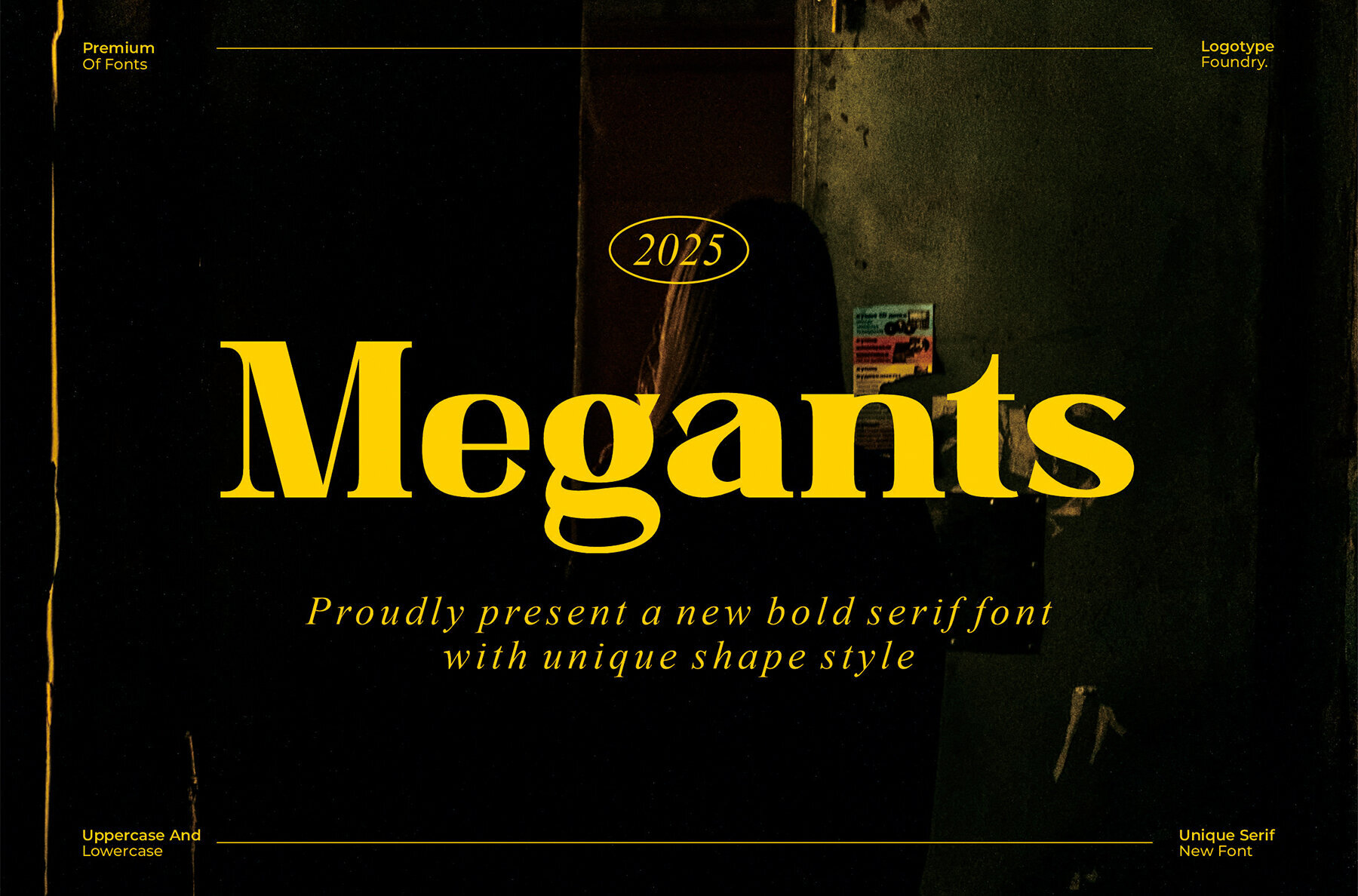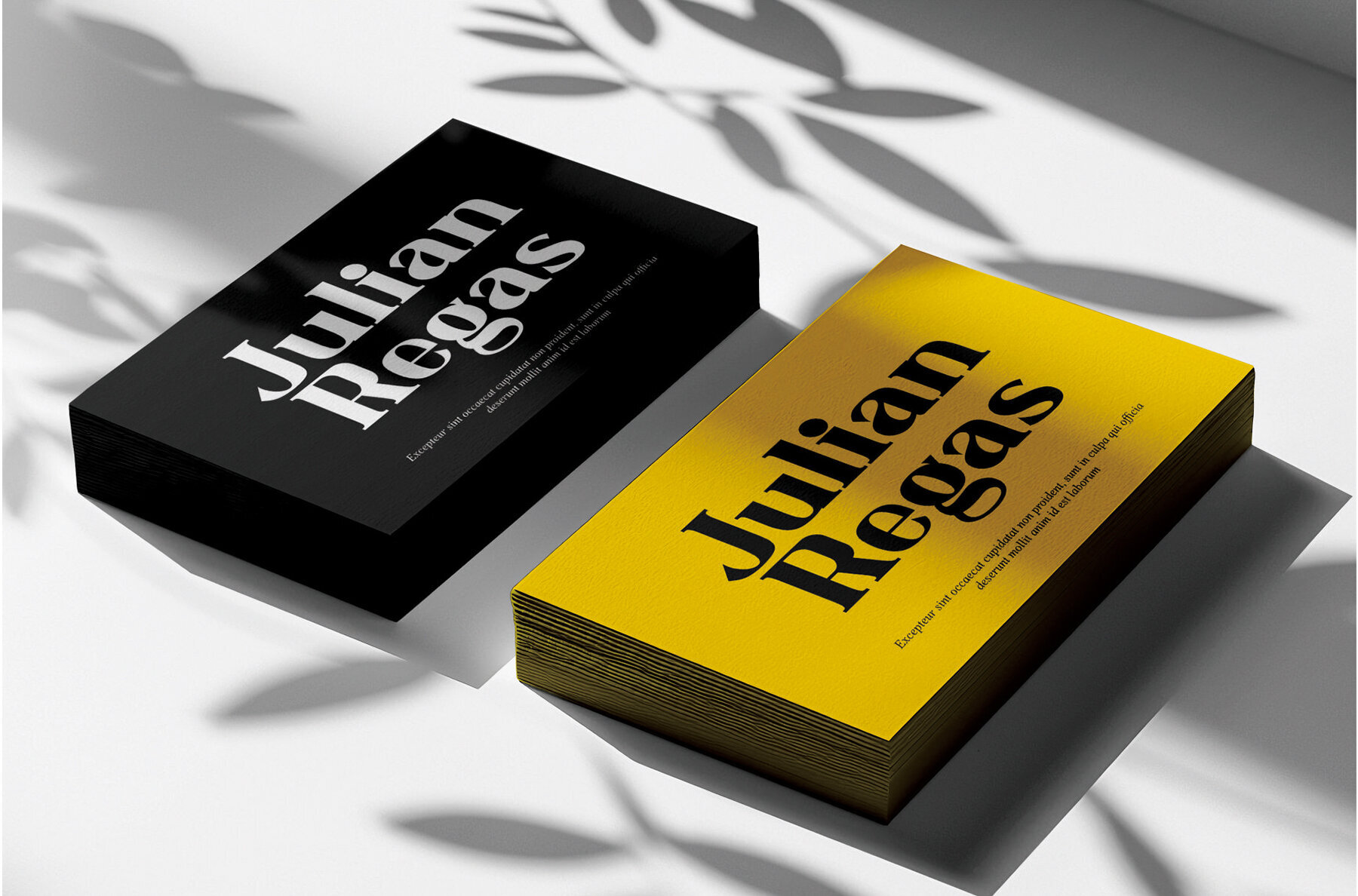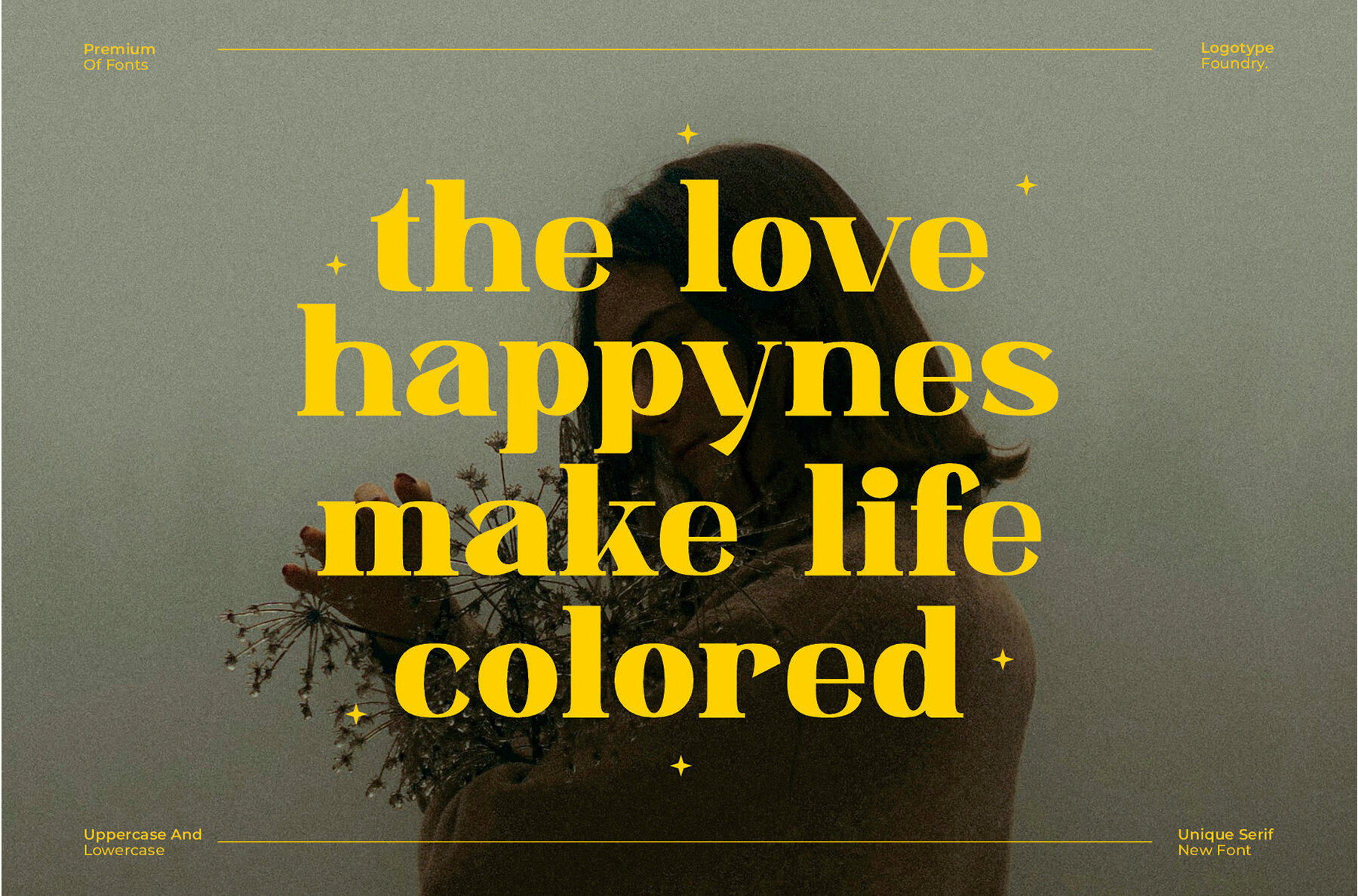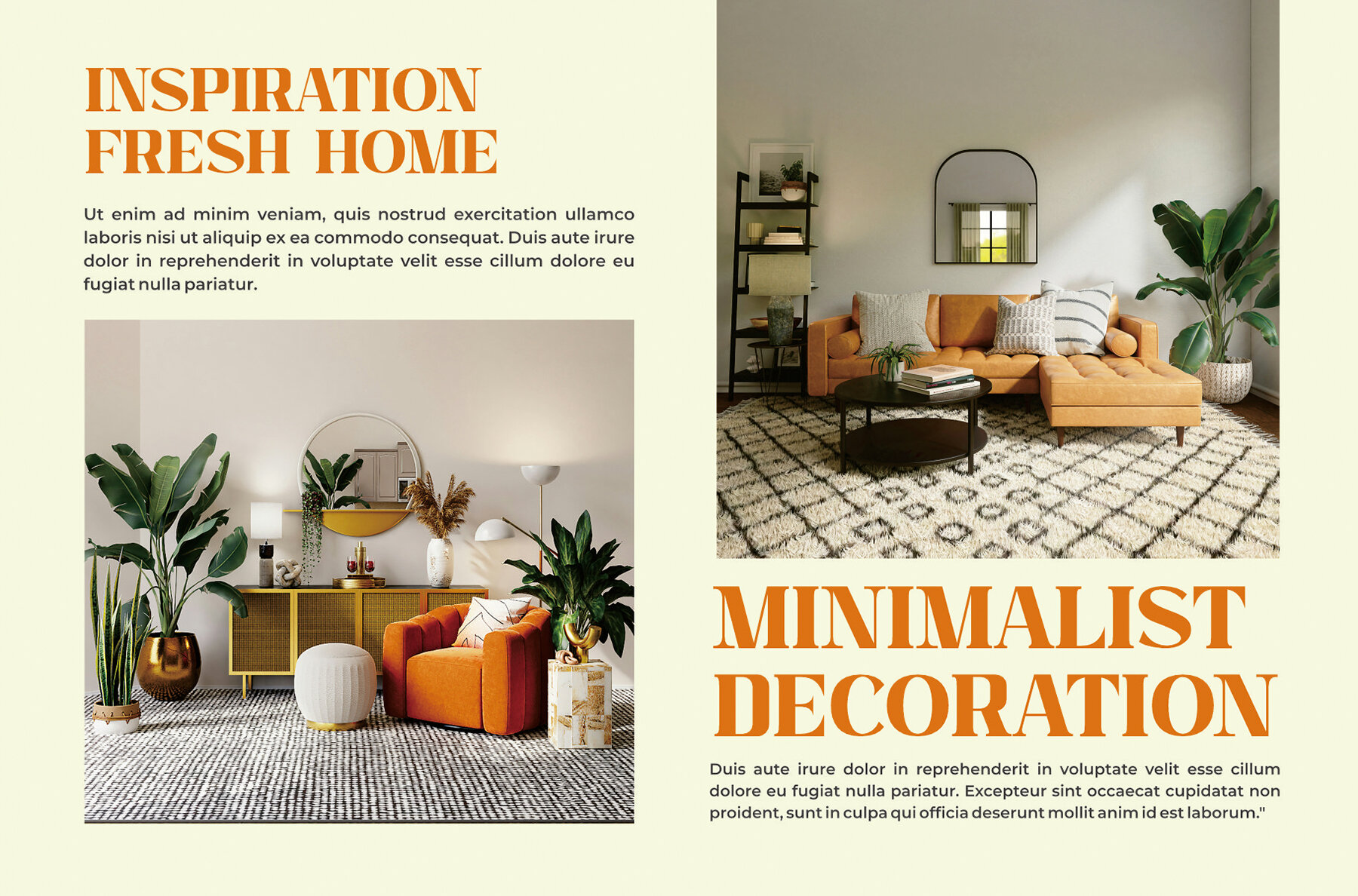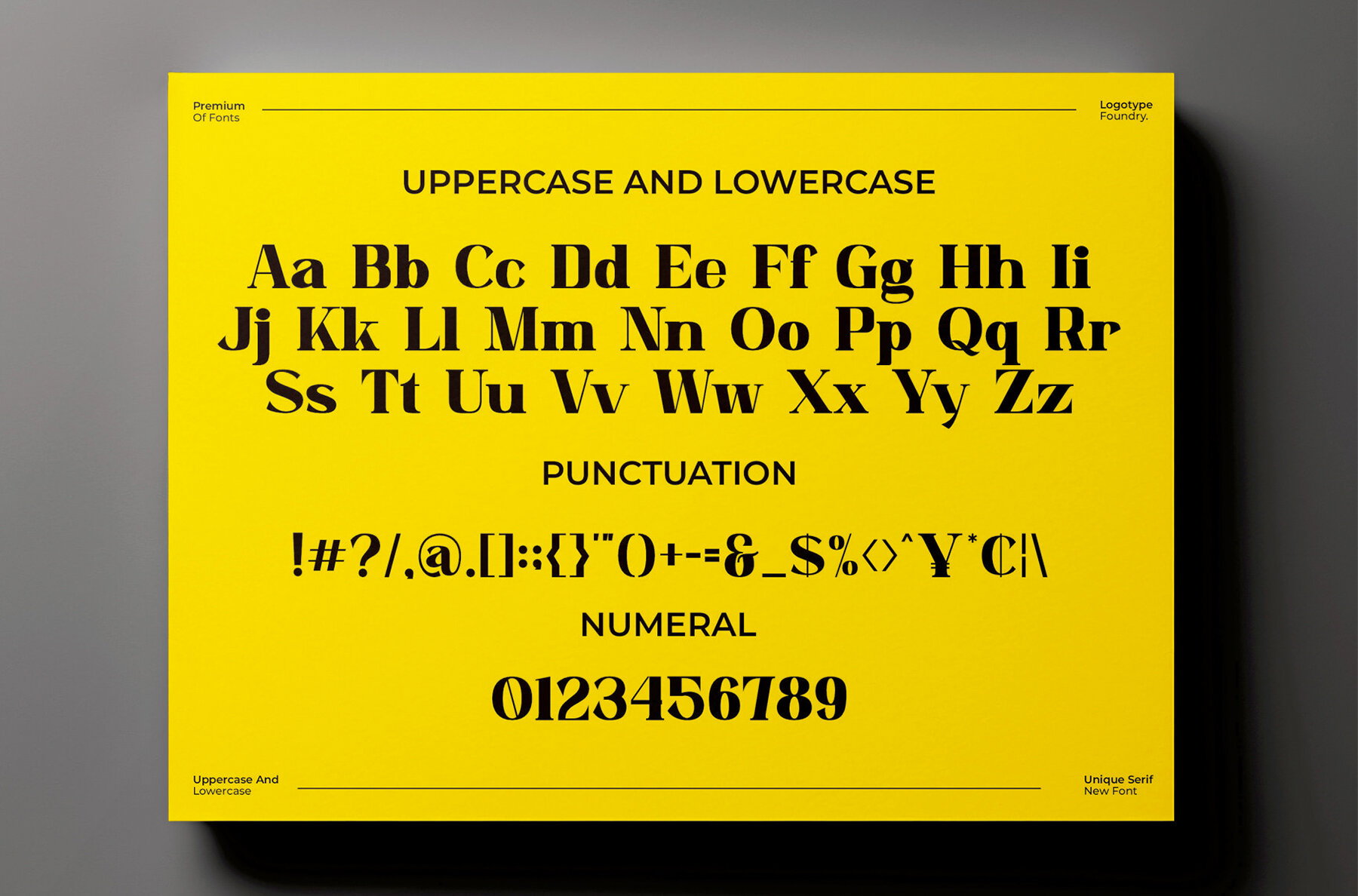
Megants Font
Megants
Discover the charm of Megants, a serif font that embodies a classic yet trendy design. With its bouncy, cute display and distinctive wood-themed character, Megants stands out in any creative project. It's perfect for enhancing invitation cards, designing company logos, crafting movie titles, or embellishing book covers. Let Megants transform business cards, brand names, and more with its unique appeal.Megants Serif Font